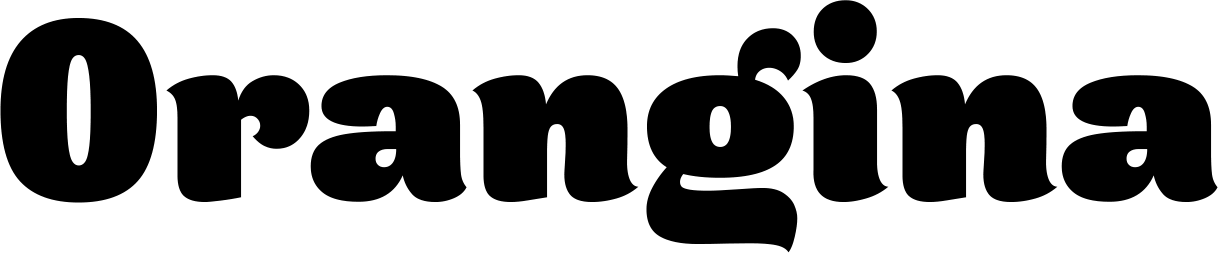
Orangina Font
Using a youthful retro font such as Orangina would be a brilliant idea. Although this food font does not support punctuation, its creative and eye-catching design will appeal to your audience and dramatically increase the quality of your content.
Its characters are angled and rounded, so it conveys a sense of courage, peace of mind, and love, also, it can be included in posters, billboards, and flyers.